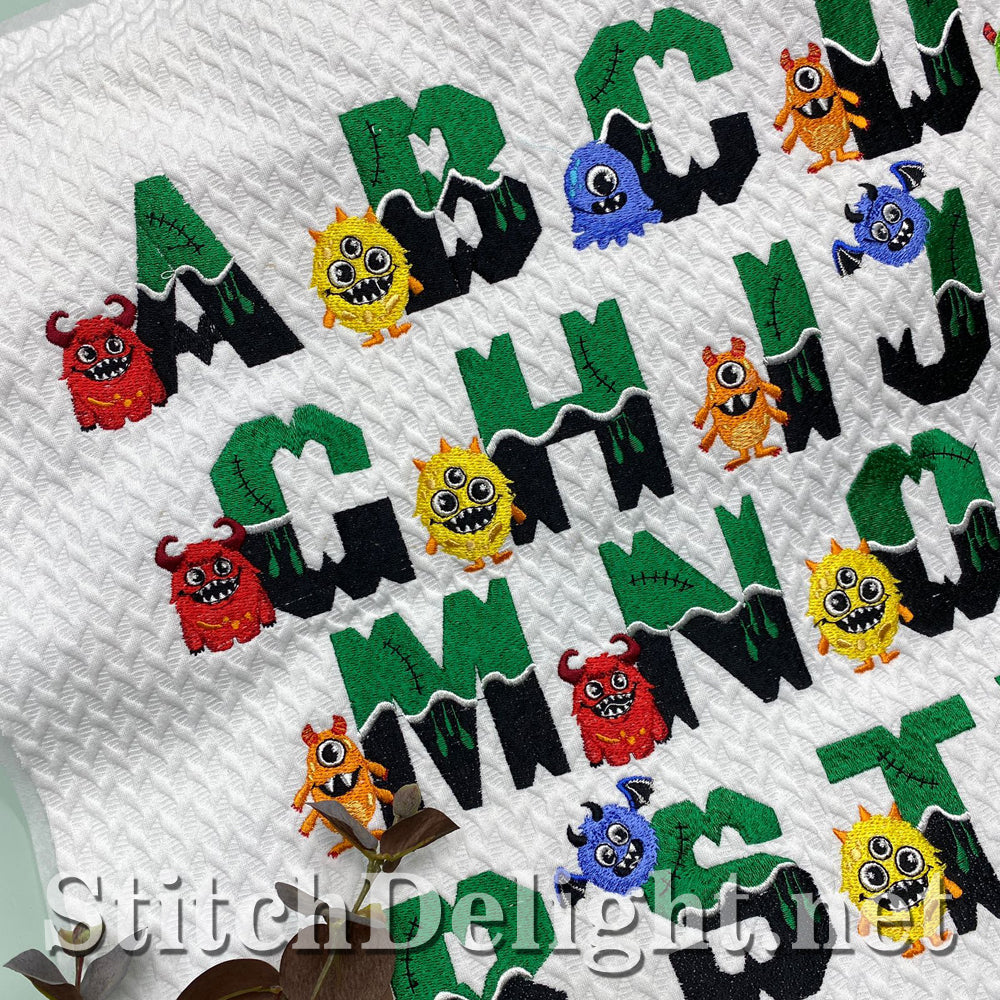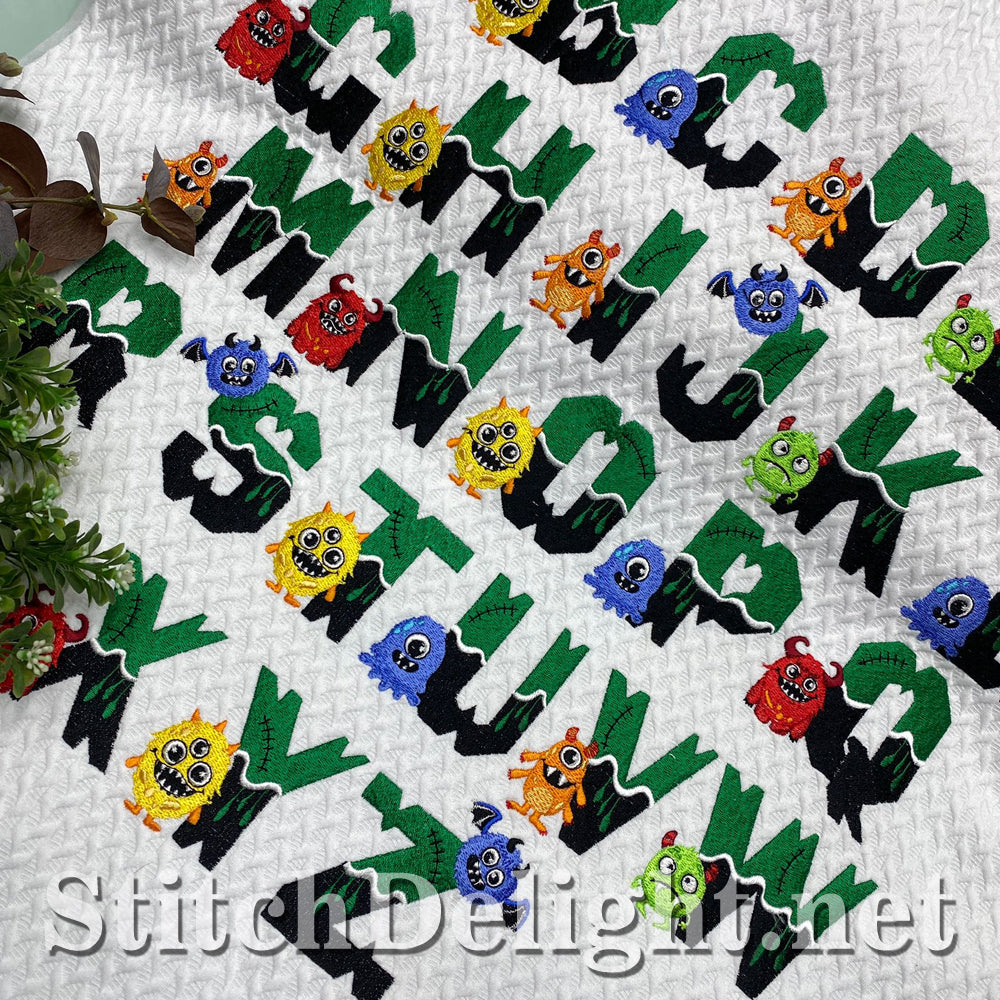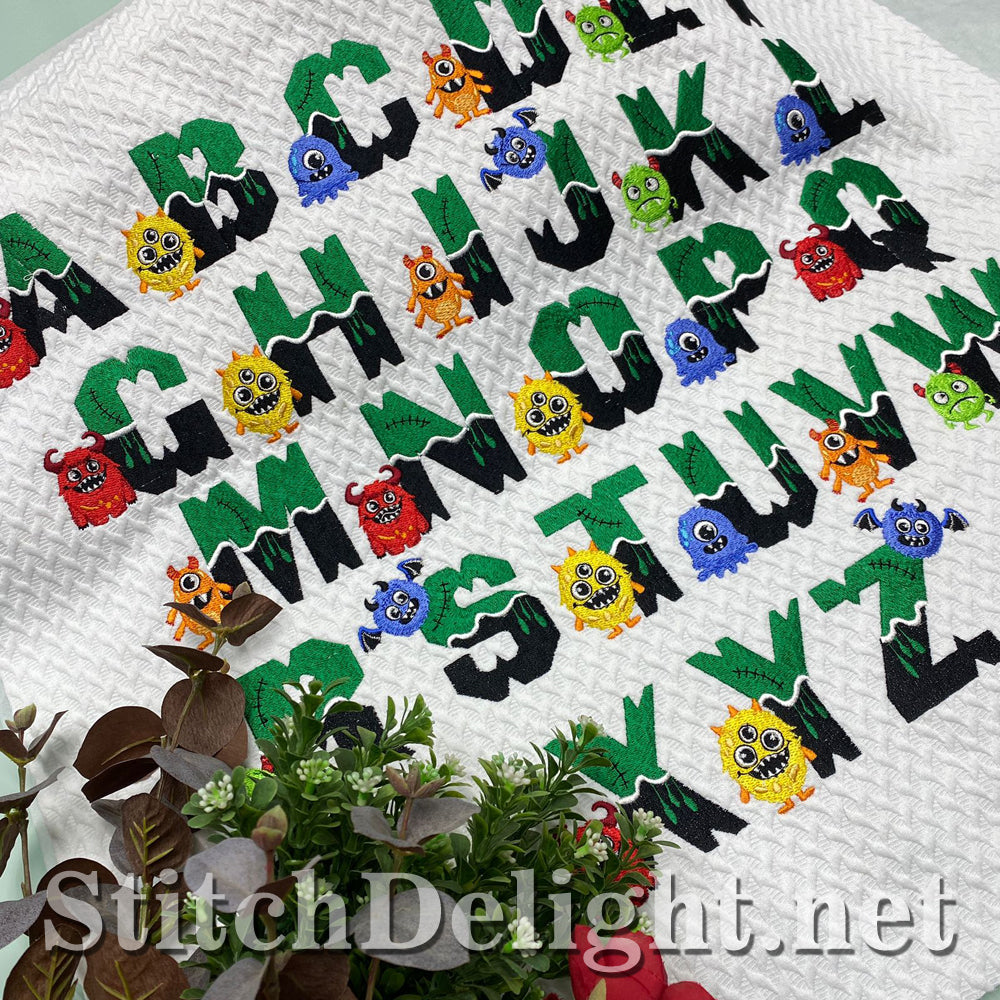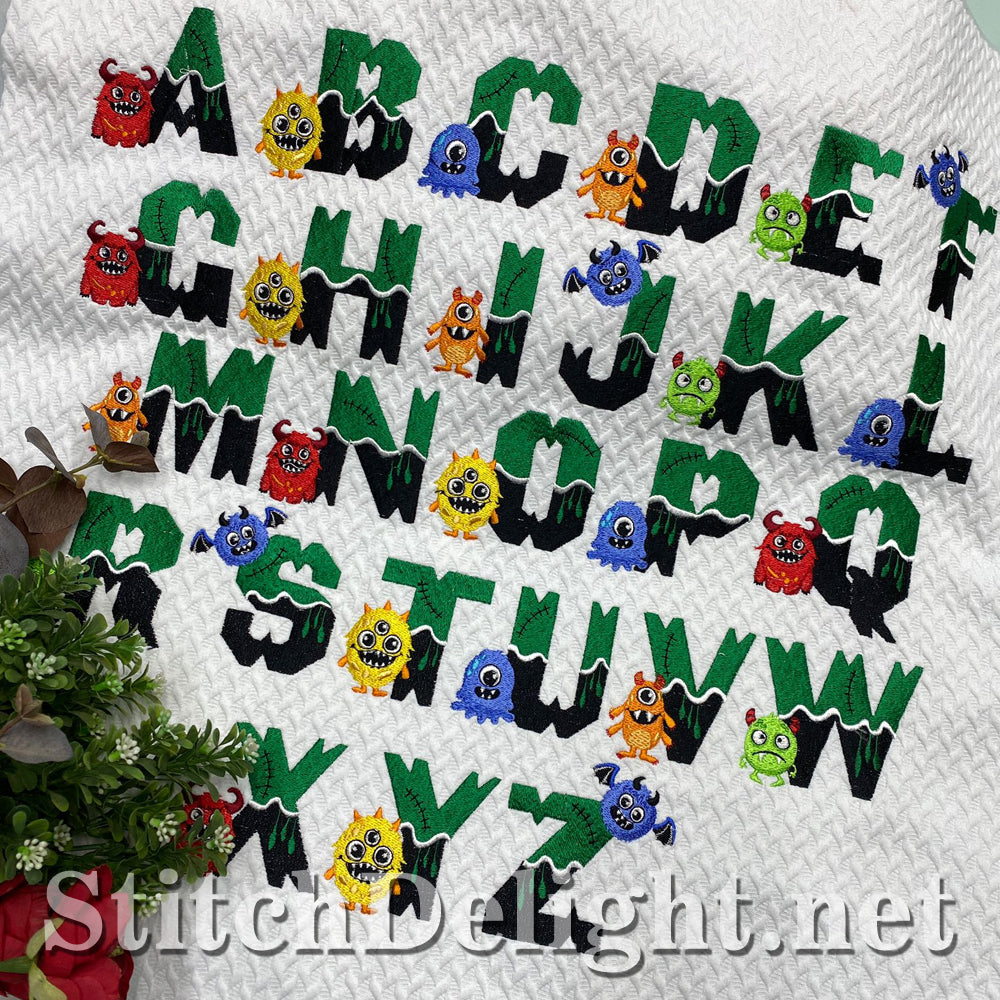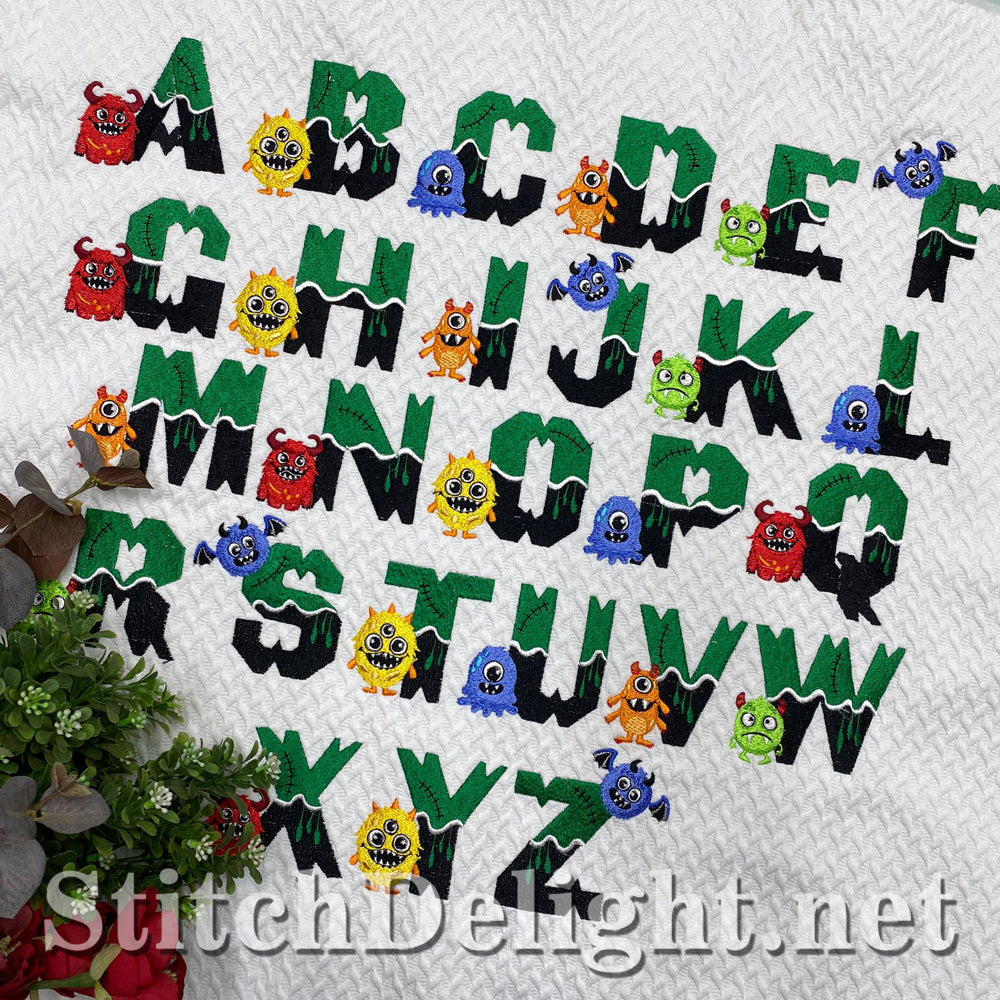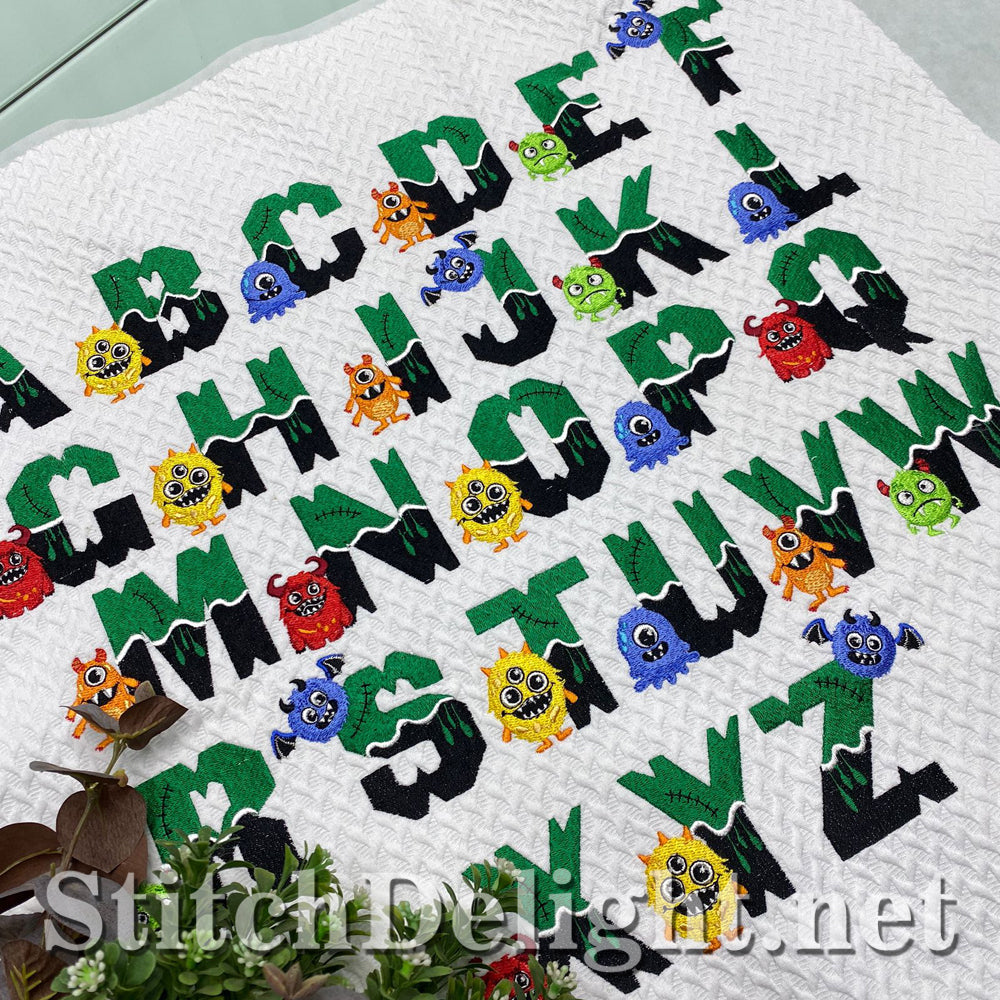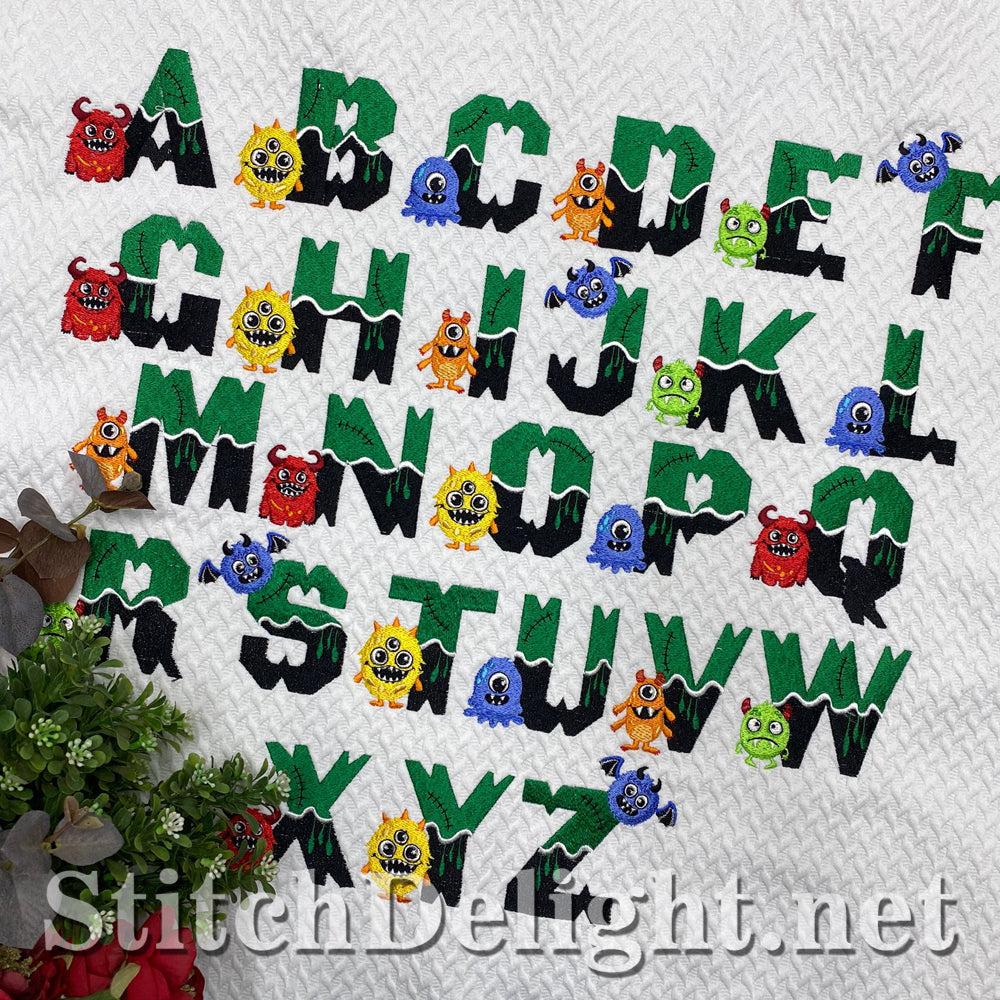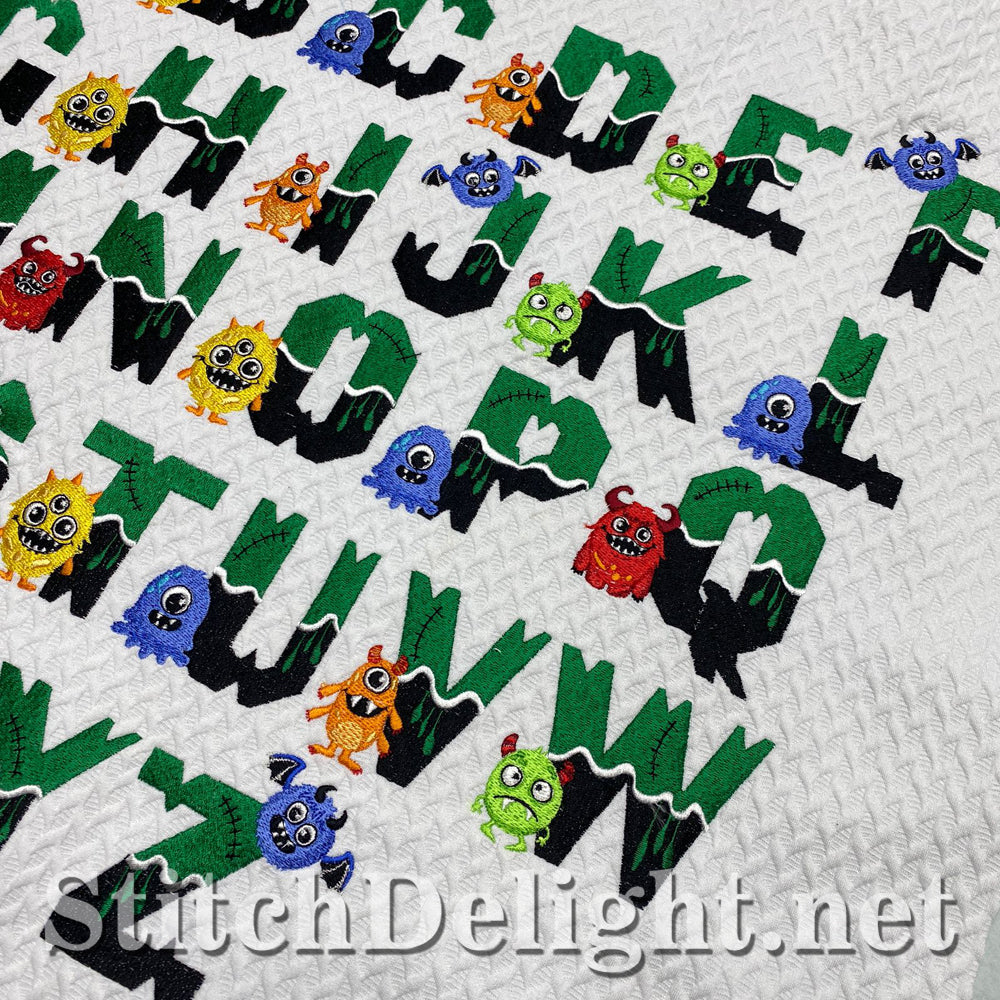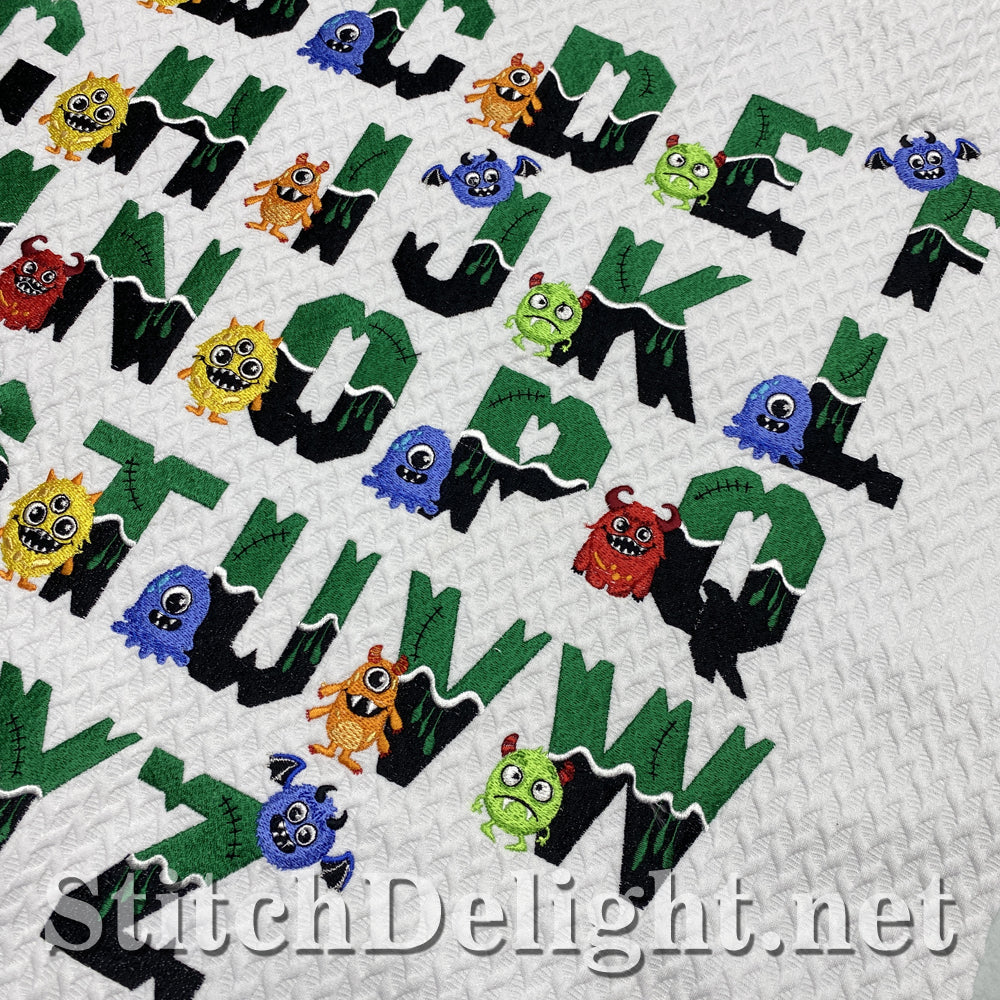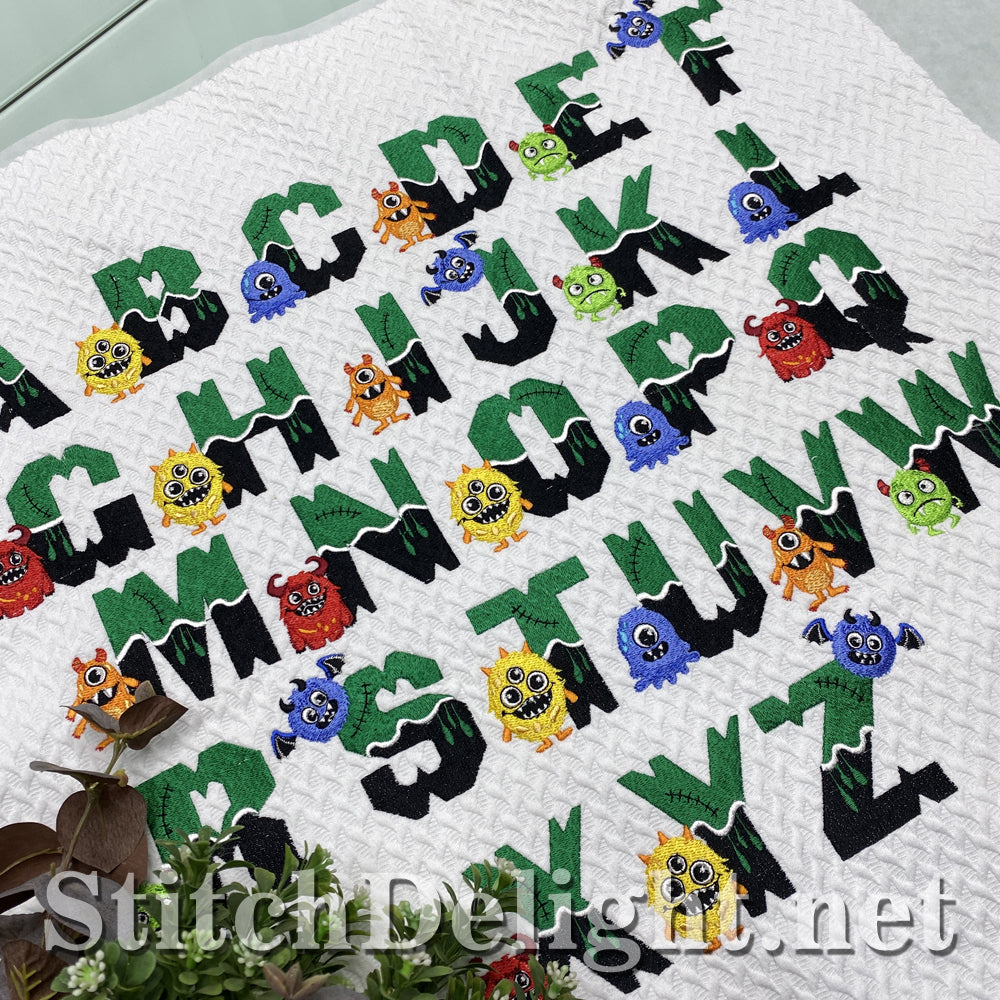
A scary font just perfect for any Halloween project or monster enthusiast. This scary font is compatible with hoop sizes 4x4" and up and includes the whole font! Be sure to checkout it's matching font SDS1777 Kiddies Font